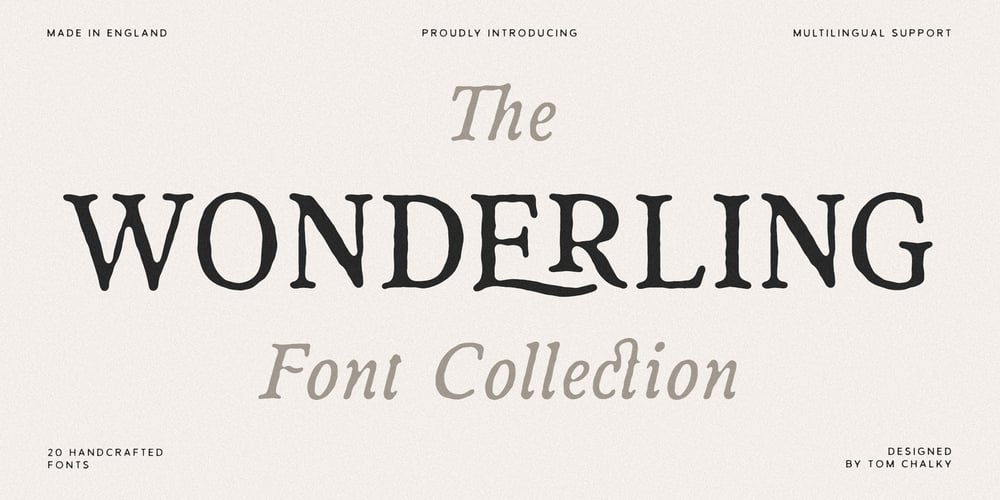
TC Wonderling Font Family was designed by Tom Chalky and published by Tom Chalky. TC Wonderling contains 20 styles and family package options. The ‘Wonderling’ Font Collection is a robust yet elegant tribute to vintage typography, perfect for projects that demand character and versatility.Drawing inspiration from classic serif typefaces of years past, Wonderling combines timeless elegance with handcrafted charm, resulting in a collection of adaptable fonts suitable for a range of design applications—from logos to invitations, packaging to branding, and everything in between.With 20 handcrafted fonts spanning multiple weights across regular, rounded, italic, and condensed styles, this collection offers plenty of versatility. Each font is packed with contextual ligatures and stylistic alternates for those moments when your designs need an extra touch of flair!Quick OverviewHere’s a closer look at what Wonderling brings to the table: Latin 1 Glyph range covering all Western European languages Stylistic Alternates and Contextual Ligatures throughout Wonderling: Light, Regular, Bold Wonderling Condensed: Light, Regular, Bold Wonderling Italic: Light, Regular, Bold Wonderling Condensed Italic: Light, Regular, Bold Wonderling Round: Regular, Bold Wonderling Round Condensed: Regular, Bold Wonderling Round Italic: Regular, Bold Wonderling Round Condensed Italic: Regular, Bold